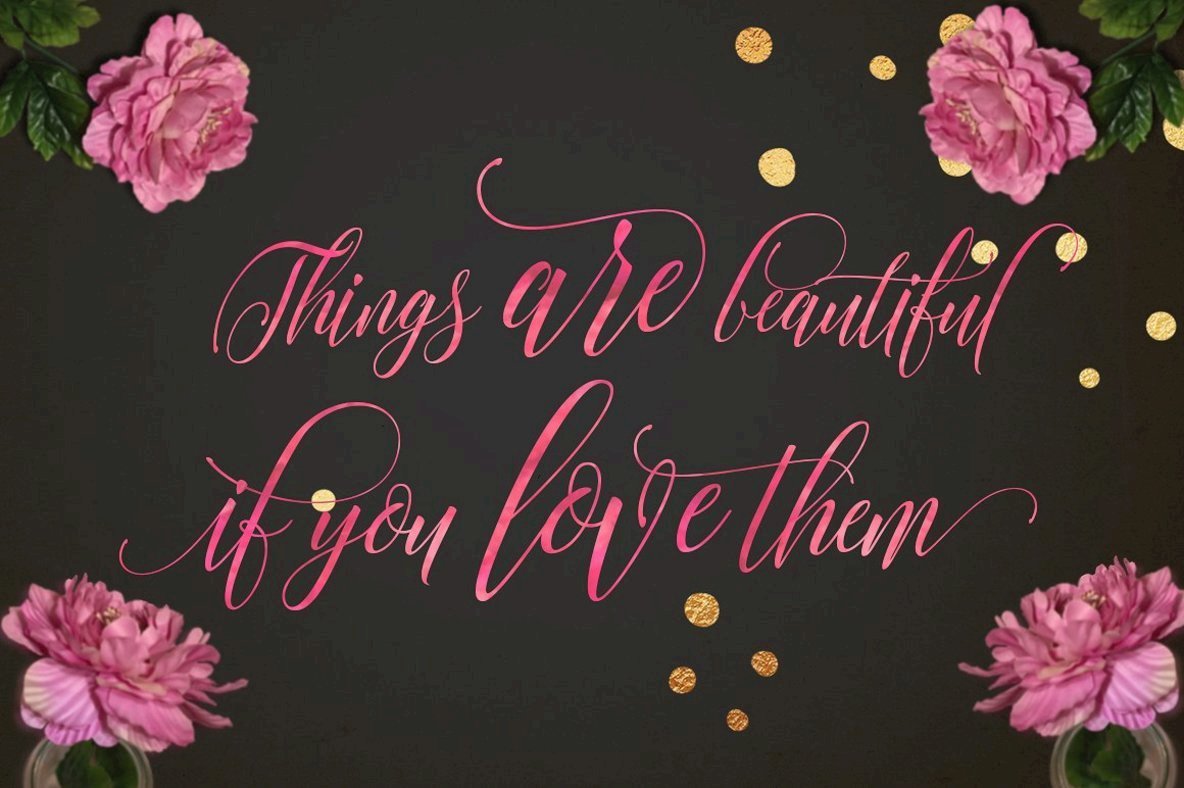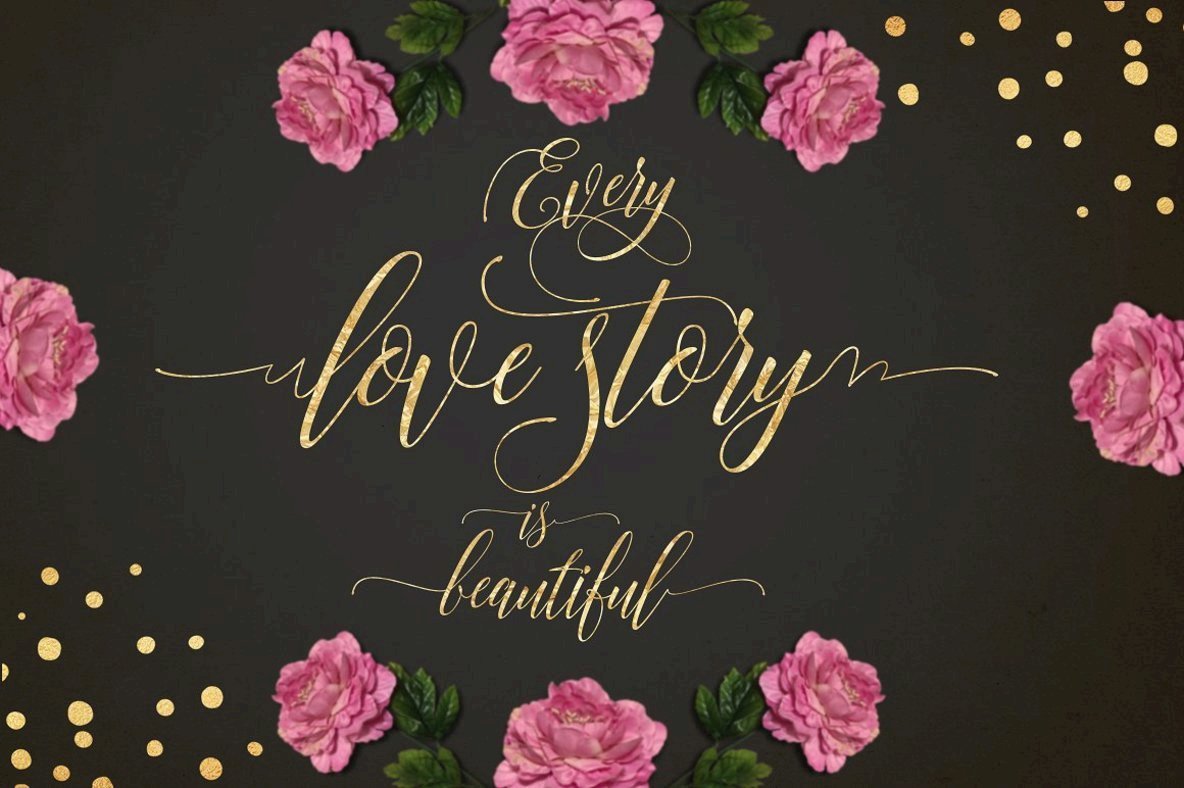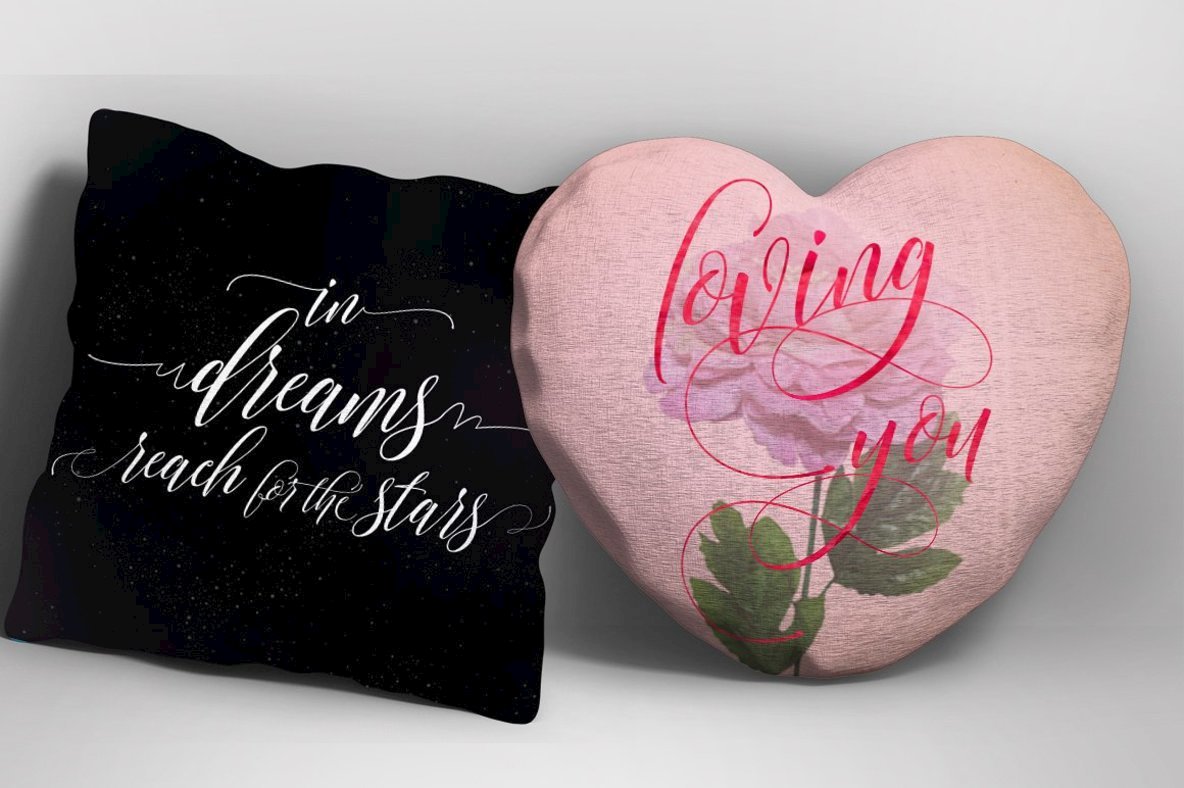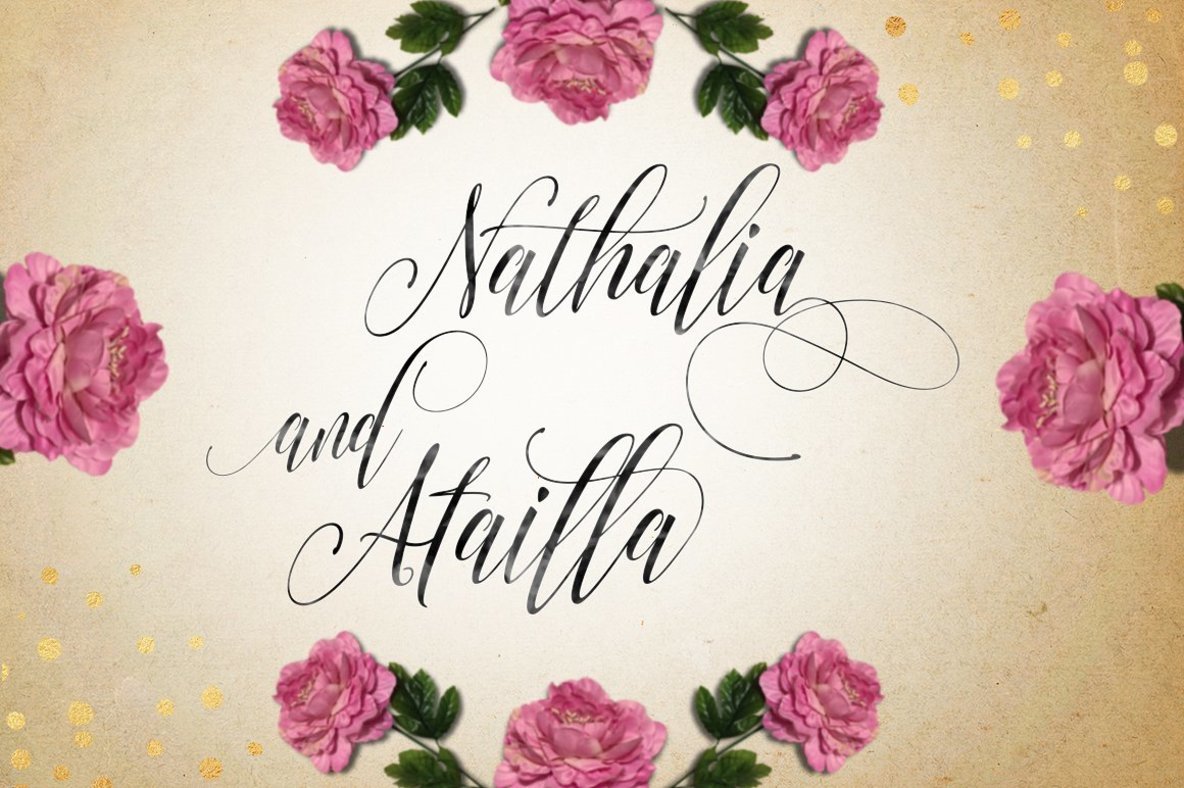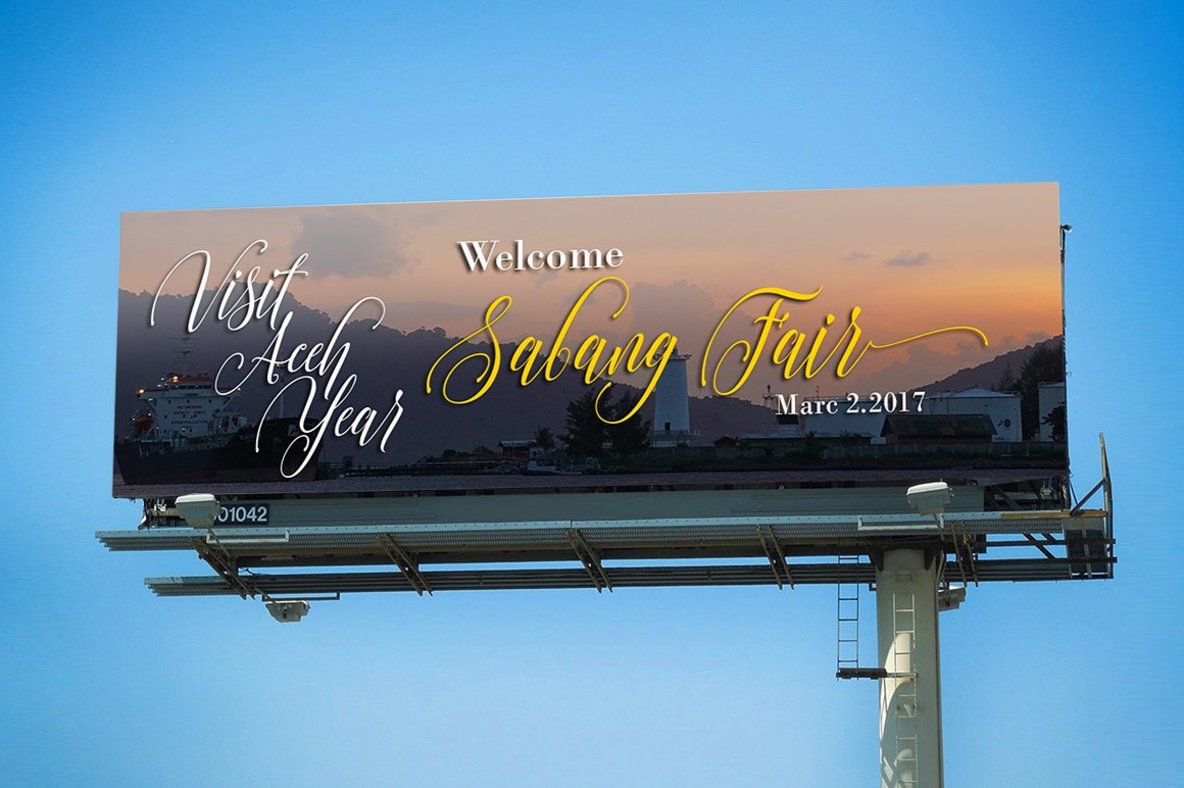
Arnetalia Font
Arnetalia
Arnetalia emerges as a modern calligraphy font that breathes natural elegance into every stroke. Developed through artistic handwriting, it features a contemporary and distinct style that beautifully embodies the essence of modern calligraphy. This versatile font is compatible with a range of graphic design software, including Photoshop, Adobe Illustrator, Adobe InDesign, CorelDraw, and Microsoft Office. Arnetalia is perfectly suited for diverse applications such as headings, logos, wedding invitations, t-shirts, letterheads, signage, labels, news, posters, and badges. Utilization of OpenType features, such as stylistic alternates, requires programs like Adobe Illustrator CS, Adobe InDesign, or CorelDraw X6-X7.Arnetalia: Distinctive Modern Calligraphy